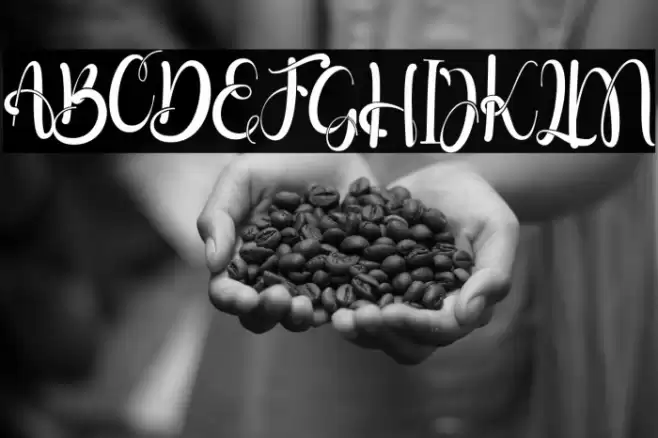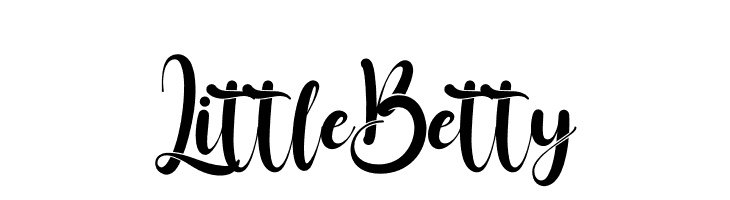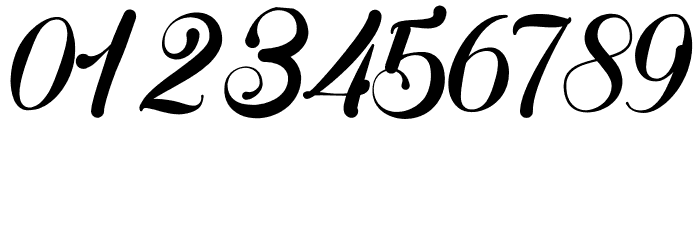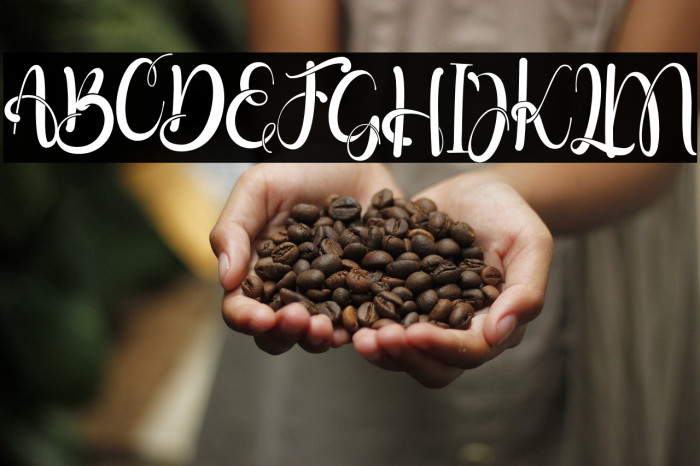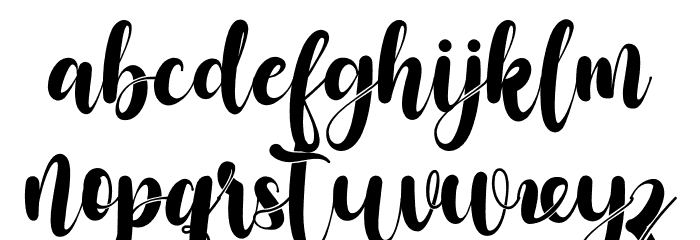
Little Betty Font
Little Betty Description
This font features a playful and elegant script style with a modern twist. The uppercase letters are characterized by their flowing, cursive lines and intricate loops, giving them a whimsical yet sophisticated appearance. The lowercase letters maintain this fluidity, with some characters extending below the baseline, adding to the font's dynamic nature. The numerals are equally stylish, incorporating swirls and curves that complement the overall design. This font's bold strokes and high contrast between thick and thin lines make it stand out, while the generous spacing between characters ensures readability.
A playful and elegant script font with bold strokes and high contrast from Uncategorized fonts.
- Proposed Projects: Ideal for wedding invitations, branding, greeting cards, and decorative posters.
- Character Spacing: Wide
- Use Case: Logos, Headlines, Decorative text